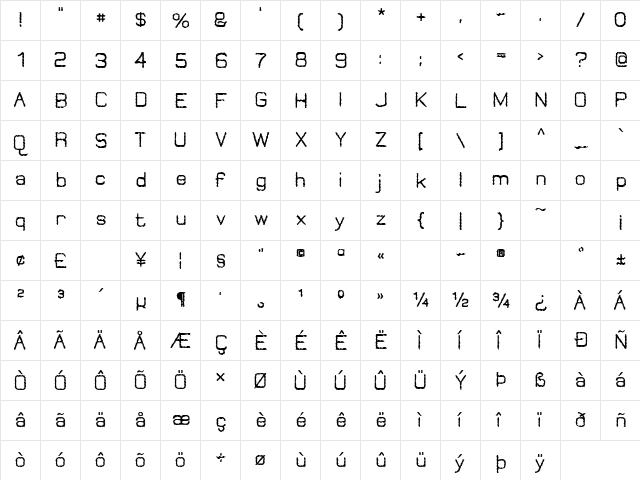
Jungle Burnout 1 Regular
| Foundry | Graham Meade |
Design Context for Jungle Burnout 1 Typeface
Jungle Burnout 1 takes a measured approach to typography — its balanced proportions and neutral character make it a reliable workhorse for both digital and print work.